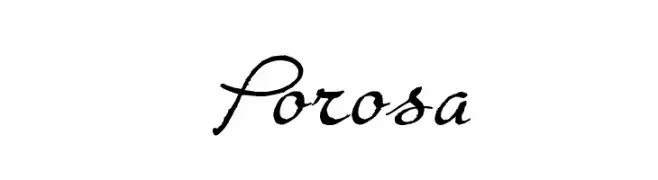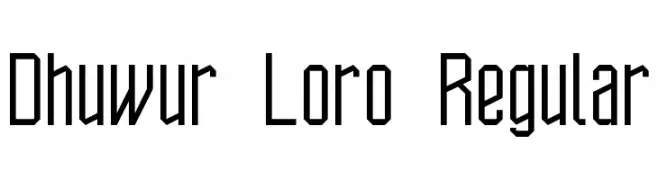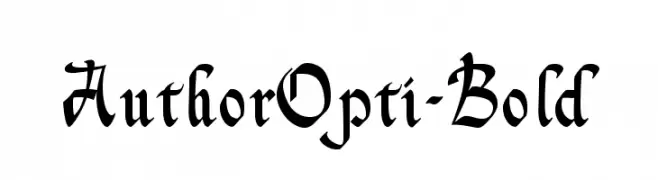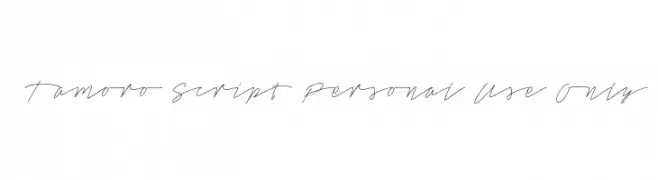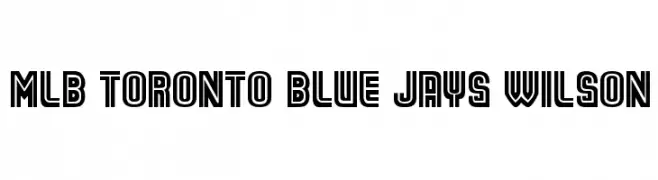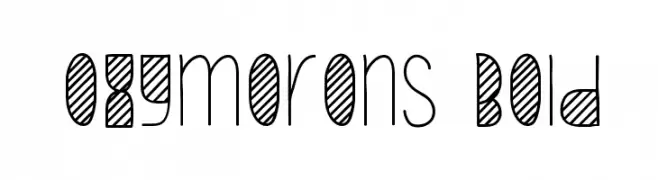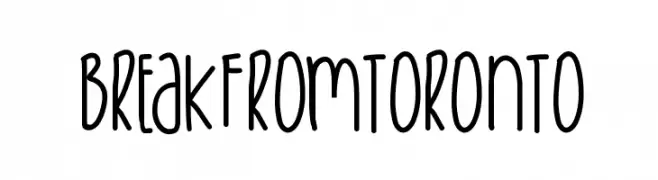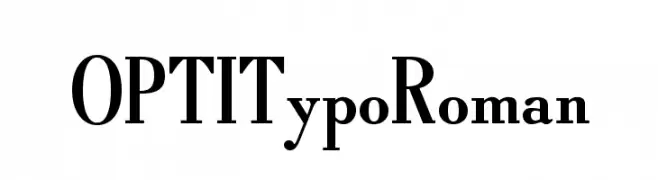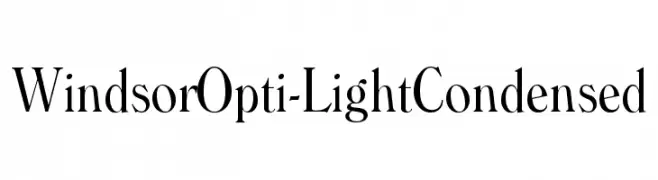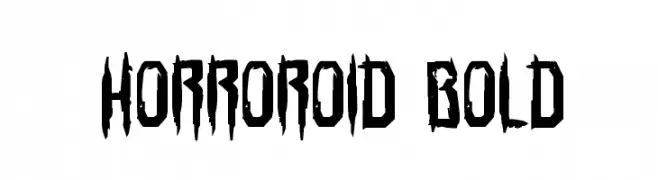
Hand-drawn meme faces with expressive, exaggerated features.
A bold, decorative font with abstract distortions and artistic cutouts.
A playful, handwritten-style font with a casual and friendly appearance.
A playful, nose-themed font with a whimsical and humorous design.
Bold, geometric sans-serif with blocky, high-impact uppercase letters.
A bold, calligraphic font with sharp angles and pronounced serifs.
A playful, handwritten font with rounded, informal characters.
A playful, whimsical font with a mix of outlined and filled elements, ideal for creative projects.
A playful, hand-drawn font with tall, narrow characters and a monoline style.
A playful, hand-drawn font with thin lines and decorative striped patterns.
A classic serif font with elegant strokes and refined details.
A classic serif font with a light, condensed style and elegant contrast.
A modern, handwritten font with thin, elegant strokes and a slight slant.
A distressed, grungy font with a hand-painted, rugged appearance.
A jagged, horror-themed font with expanded width and italic slant.
A jagged, horror-themed font with sharp, irregular edges.
A bold, jagged font with a horror-inspired aesthetic.
A jagged, distressed font ideal for horror themes.
A jagged, horror-themed font with sharp, irregular edges and a condensed style.